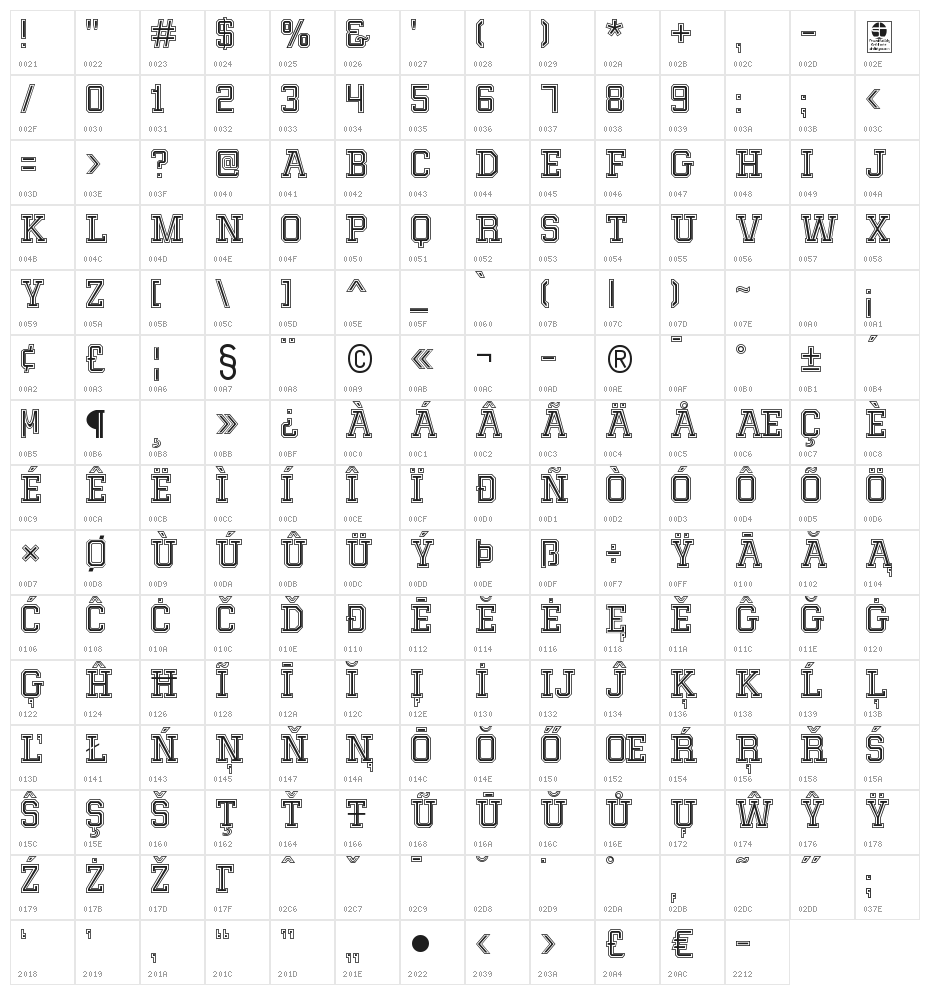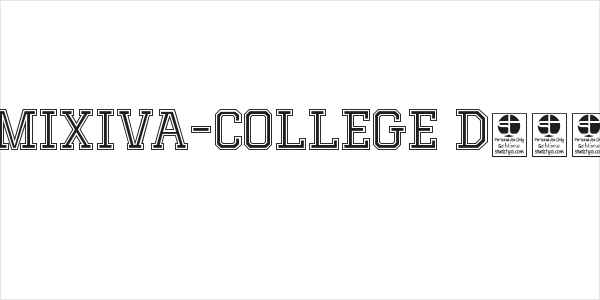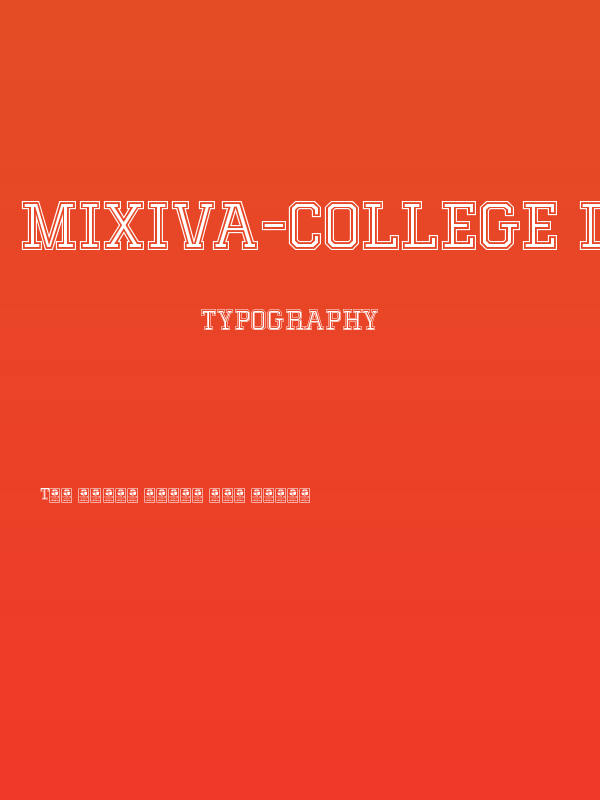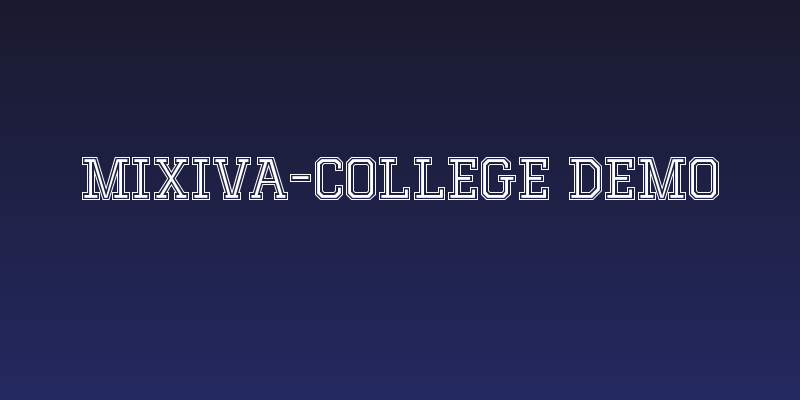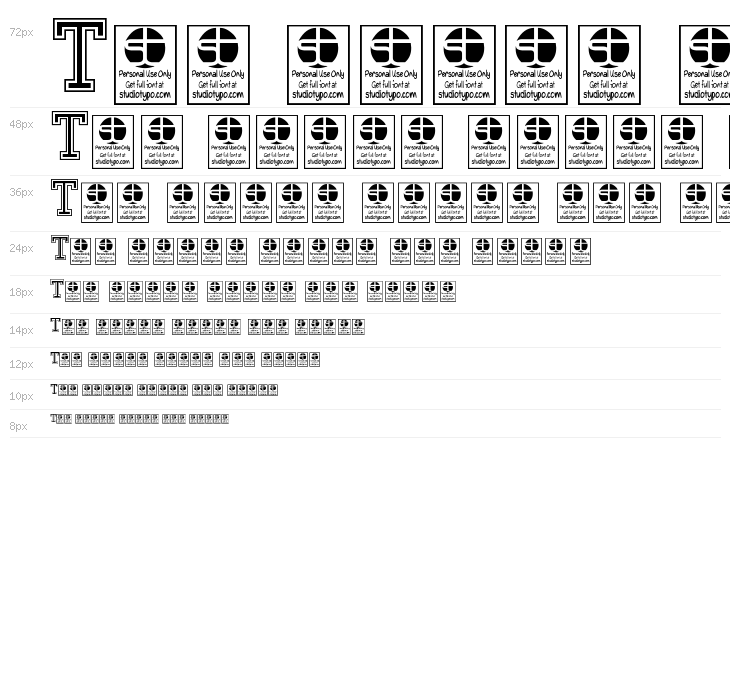
MIXIVA-COLLEGE Demo Font
MIXIVA-COLLEGE Demo Description
This font features a bold, collegiate style with a strong, structured appearance. The characters are outlined, giving them a three-dimensional effect that enhances their visibility and impact. Each letter and number is designed with a consistent width and height, maintaining uniformity across the typeface. The uppercase letters are prominent and commanding, ideal for making statements. The numerals and special characters follow the same design principles, ensuring cohesion throughout. The font's style is reminiscent of traditional college or varsity lettering, often seen on sports jerseys and university merchandise.
| Proposed Projects | Ideal for sports team branding, university merchandise, event posters, and any project requiring a bold, impactful typeface. |